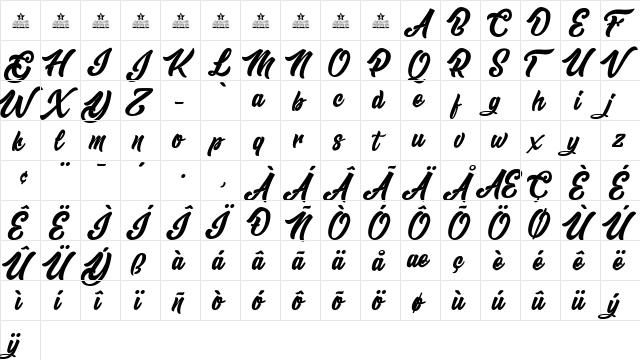
Master of Comics Personal Use Regular
| Designer | Billy Argel |
Design Context for Master of Comics Personal Use Typeface
Master of Comics Personal Use has an approachable, lighthearted character — its loose, expressive forms are well-suited to children's content, casual branding, and fun-first design.
Great for children's books, toy packaging, family event branding, and casual consumer-facing design.
Font Pairing: Pairs well with a rounded or humanist sans for body copy, maintaining the friendly tone without relying on Master of Comics Personal Use to carry extended reading.
Pro Tip: Avoid using Master of Comics Personal Use for long passages of text — it works best for headlines, labels, and short calls to action.